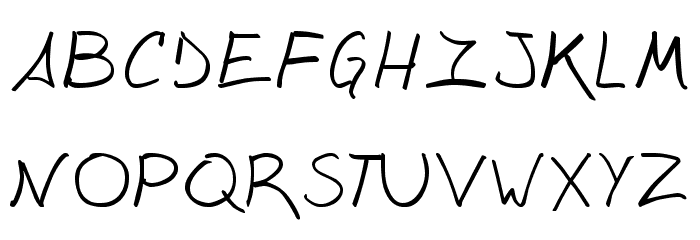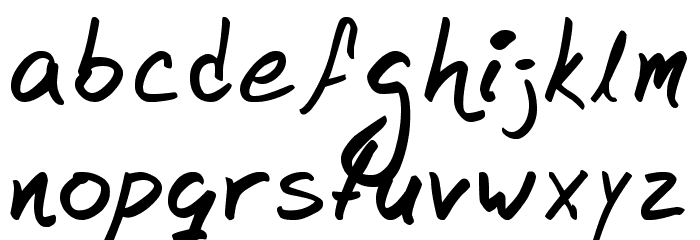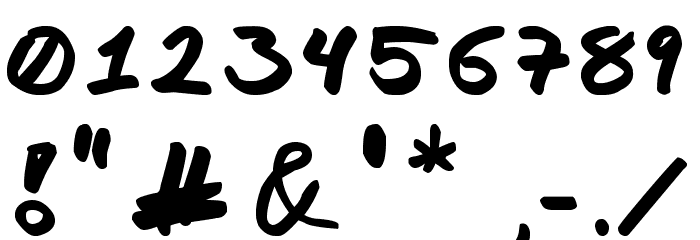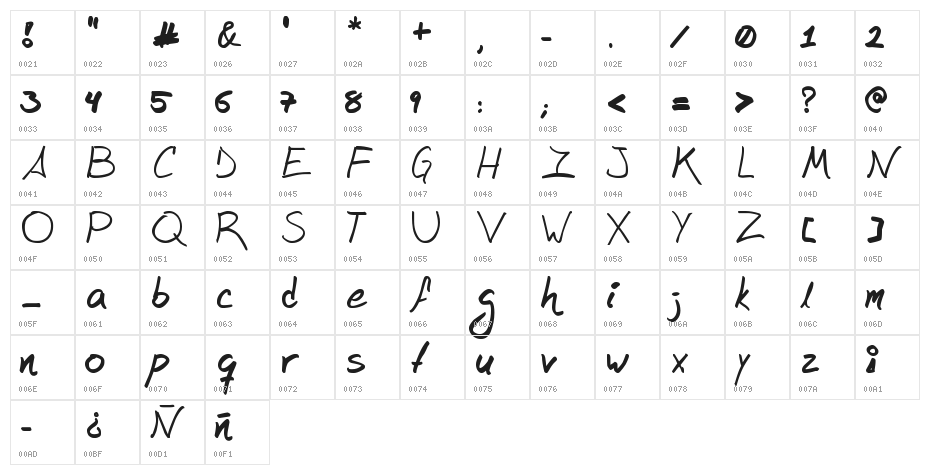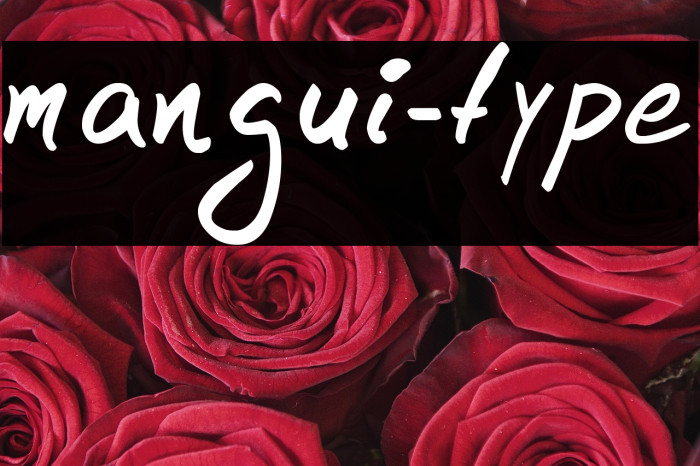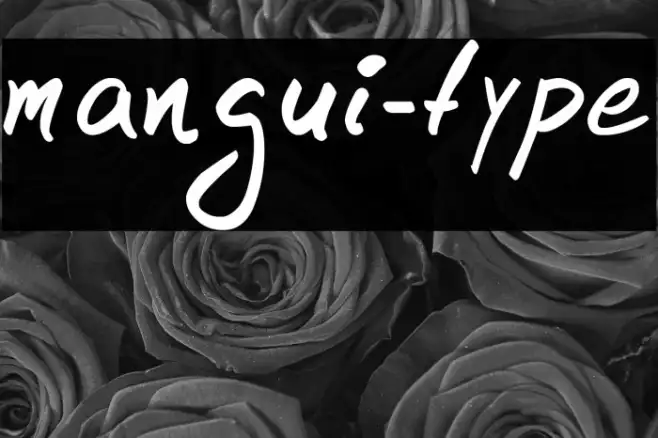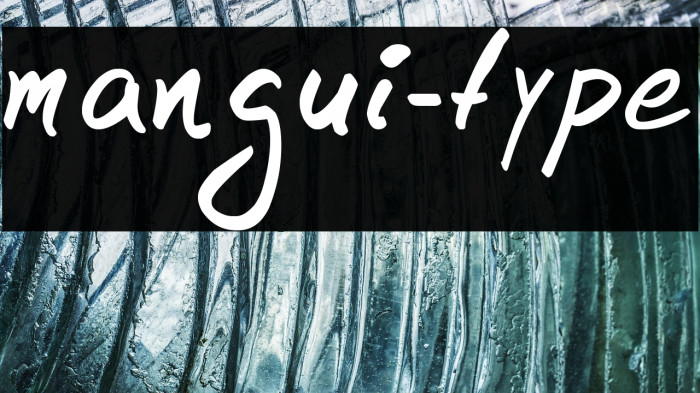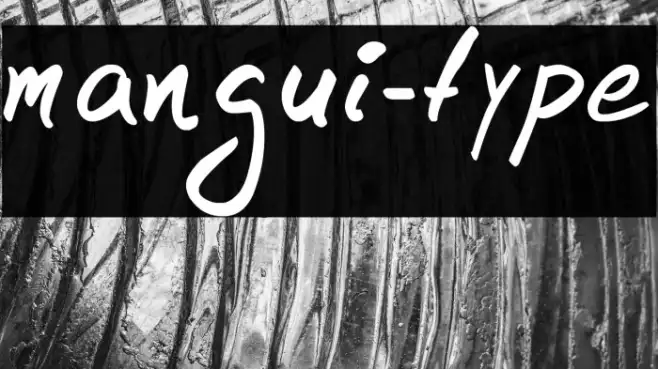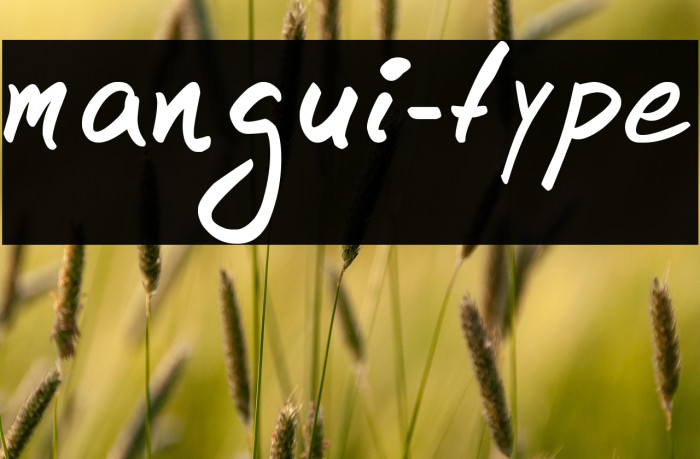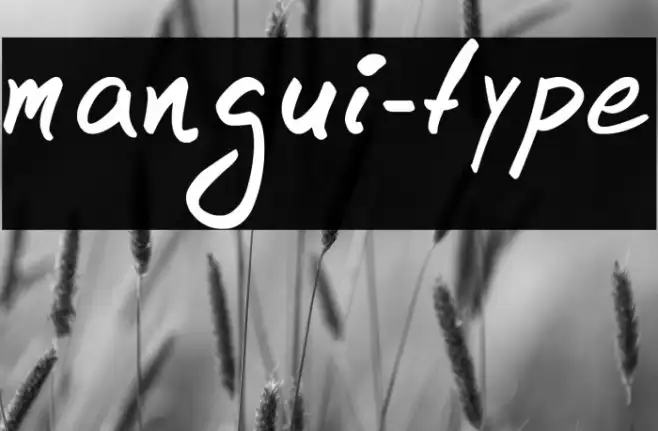
mangui-type Font
A playful, handwritten font with a casual and dynamic style, featuring irregular strokes and a lively appearance.
Playful handwritten font with dynamic strokes.
- Proposed Projects: Greeting cards, invitations, casual branding.
- Overall Style: Casual, Playful
- Use Case: Headlines, Informal text, Creative projects